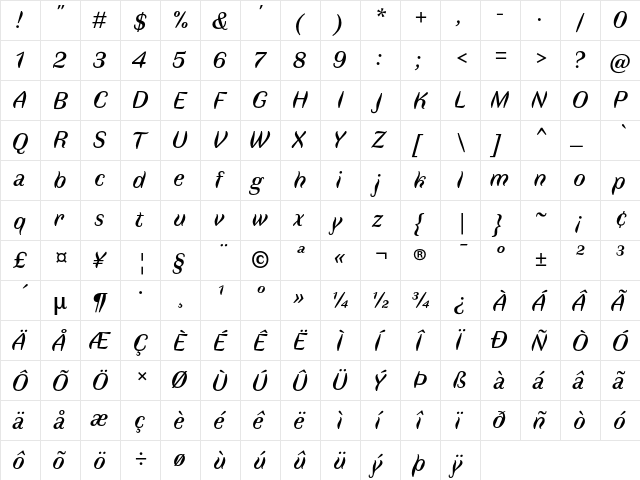
Faune Text Italic
| Foundry | Centre national des arts plastiques |
| Designer | Alice Savoie |
Design Context for Faune Text Typeface
Faune Text is a composed and adaptable typeface that performs quietly and consistently across a wide range of design contexts. Its italic angle brings a sense of urgency and motion to the letterforms.